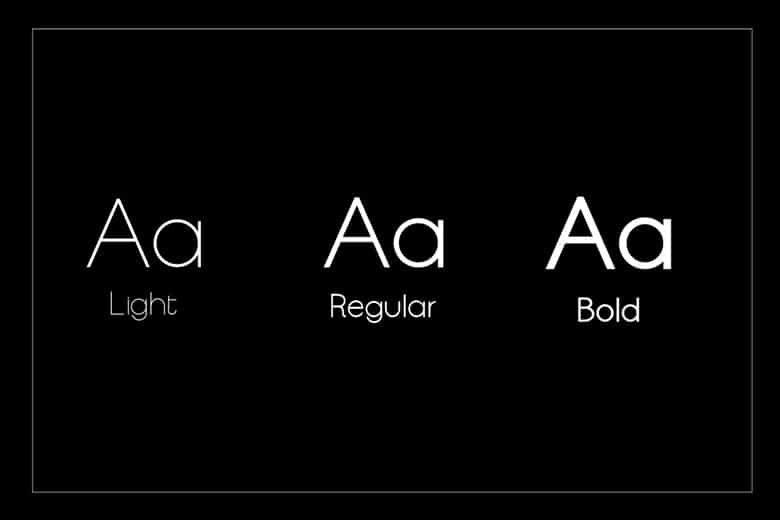
Serenata Vantages is a beautify sans-serif font that gives a feeling of up to date elegant look. This font is very professional and stylish with its minimalistic design of the letters and good proportions, it will work well in any project be it for branding, advertising, publishing or even website.